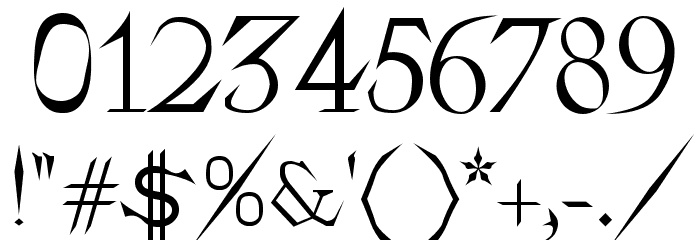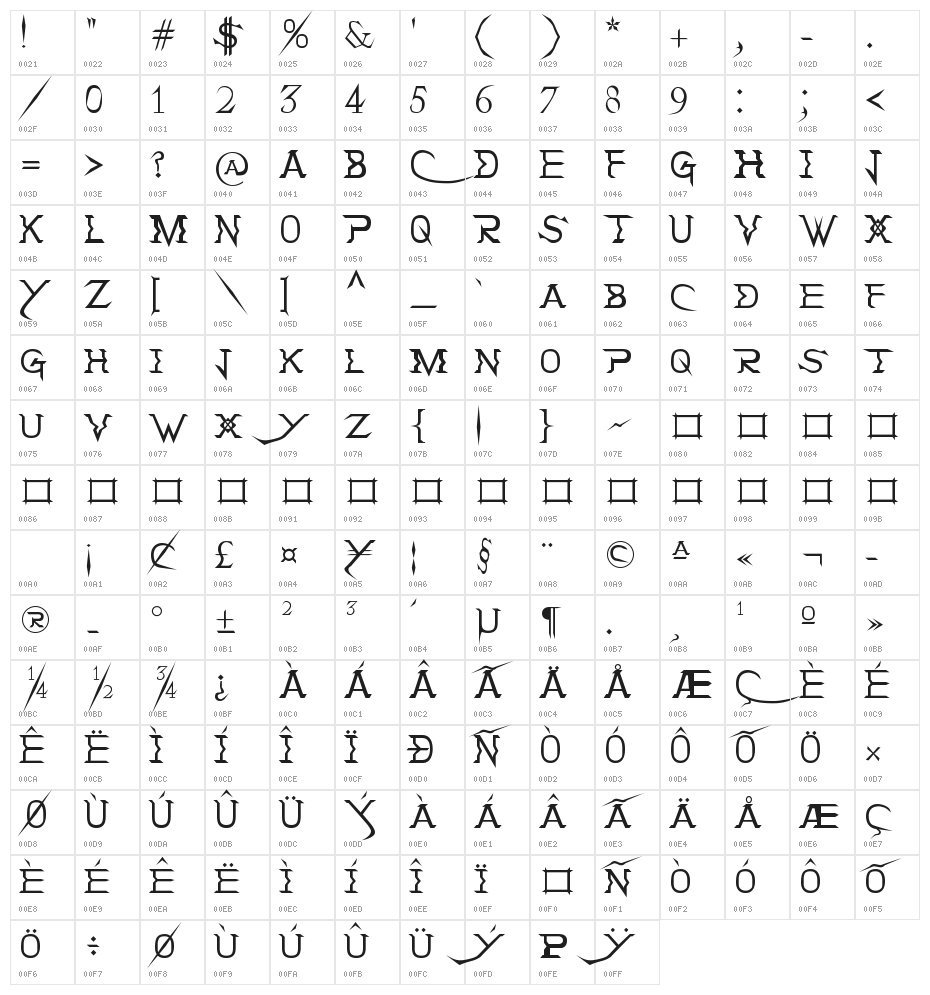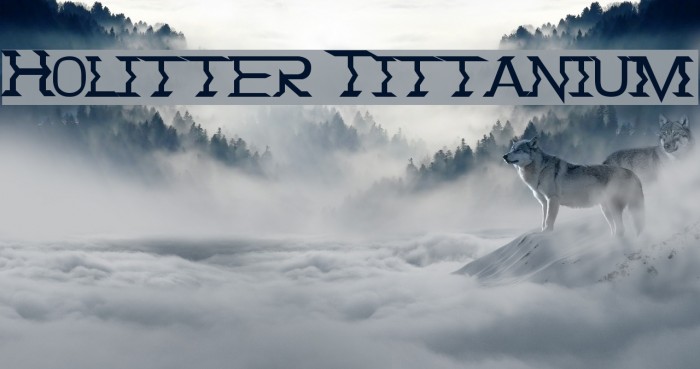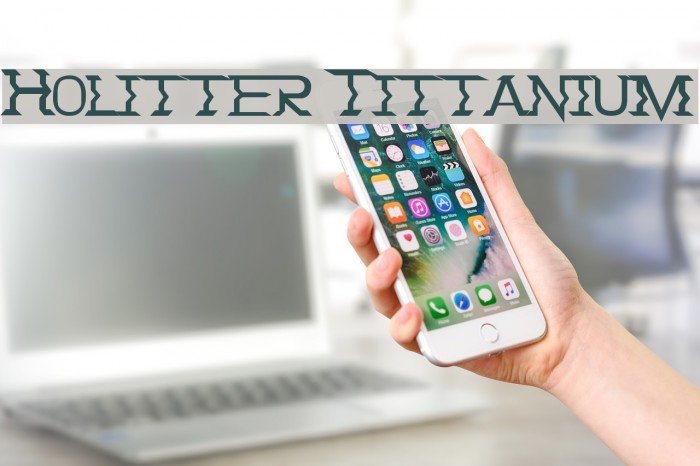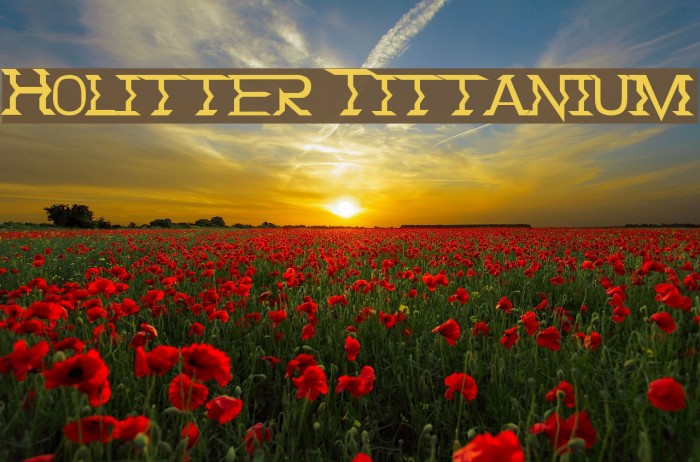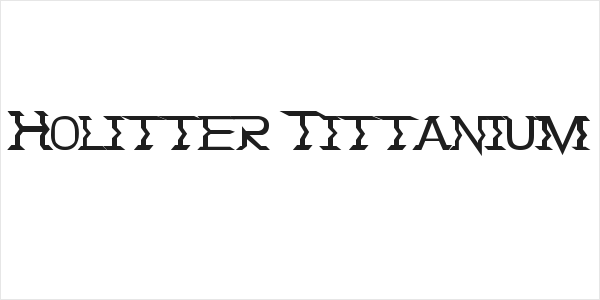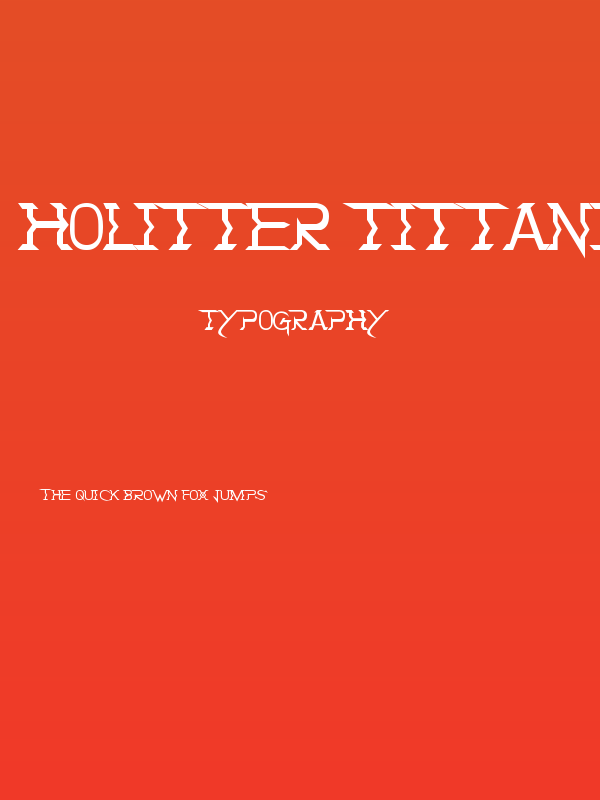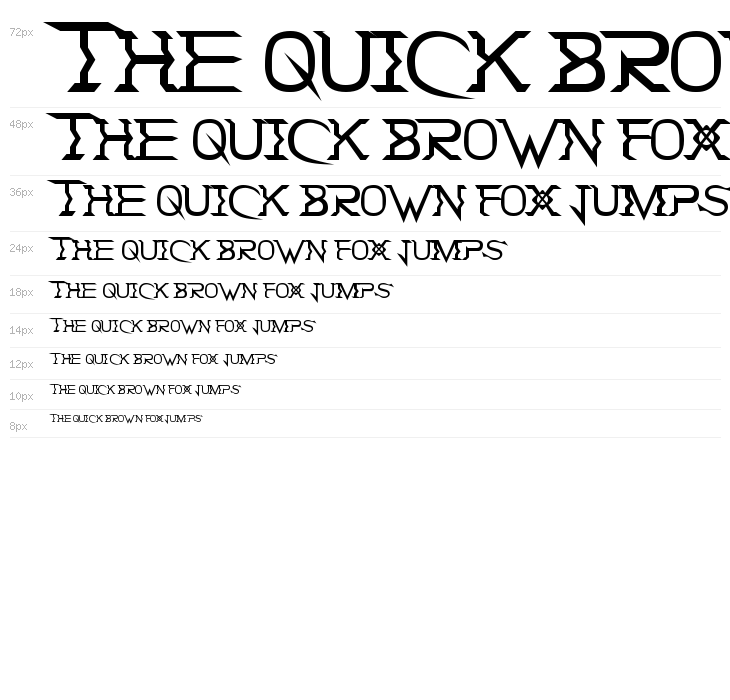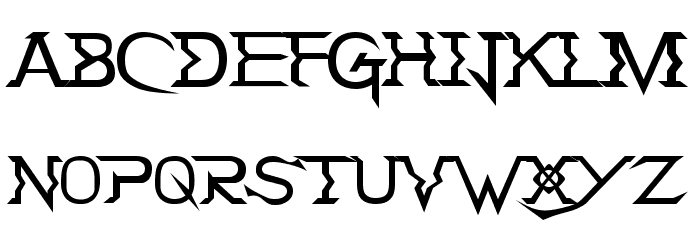
Holitter Tittanium Font
Holitter Tittanium Description
This font features a bold, angular design with sharp edges and unique geometric elements. The uppercase letters have a striking, aggressive appearance, with certain characters incorporating extended strokes and pointed serifs. The lowercase letters maintain the same angular style, providing a cohesive look throughout. Numbers are designed with similar sharp angles, ensuring consistency across all characters. Special characters are equally bold and distinctive, making them stand out. The overall style is modern and edgy, suitable for projects that require a strong visual impact.